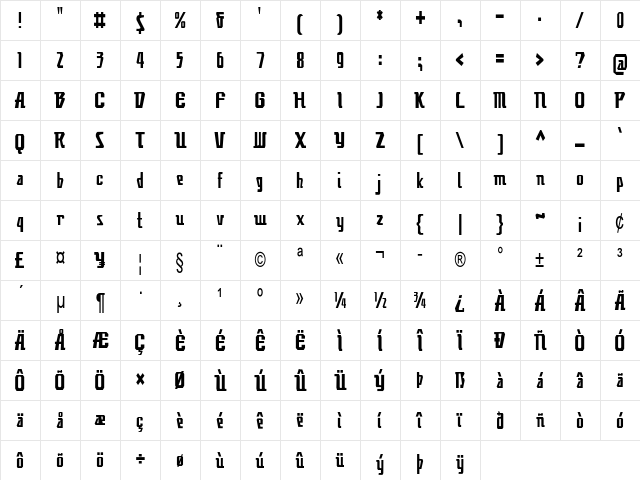
Times Squared Condensed Regular
Style: Condensed Regular
Times Squared Family
Times Squared Condensed Regular
Design Context for Times Squared
Times Squared is a composed and adaptable typeface that performs quietly and consistently across a wide range of design contexts. Its narrow stance lets it pack a punch even in space-constrained designs.